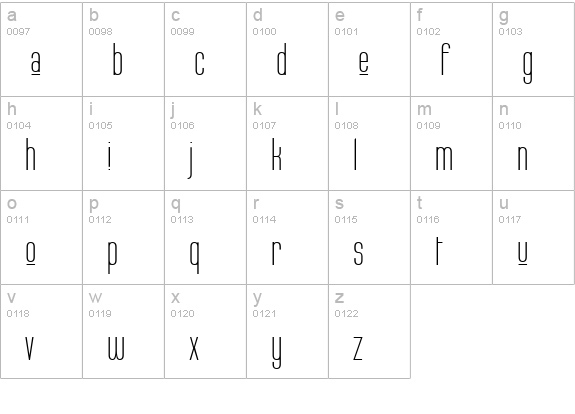
Labtop Upper font is a captivating and modern typeface that exudes elegance and sophistication. With its clean lines and stylish curves, this font is perfect for adding a touch of class to any design project. The Labtop Upper font is versatile, making it suitable for a wide range of applications, from branding and advertising to web design and print materials. What makes Labtop Upper font even more appealing is that it is available for free download at FontsMarket.com. This means that you can easily access this high-quality font without having to spend a penny. Whether you are a seasoned designer looking to refresh your font collection or a beginner exploring typography for the first time, Labtop Upper font is a fantastic choice that won't break the bank. Download it today and elevate your designs with this stunning typeface.